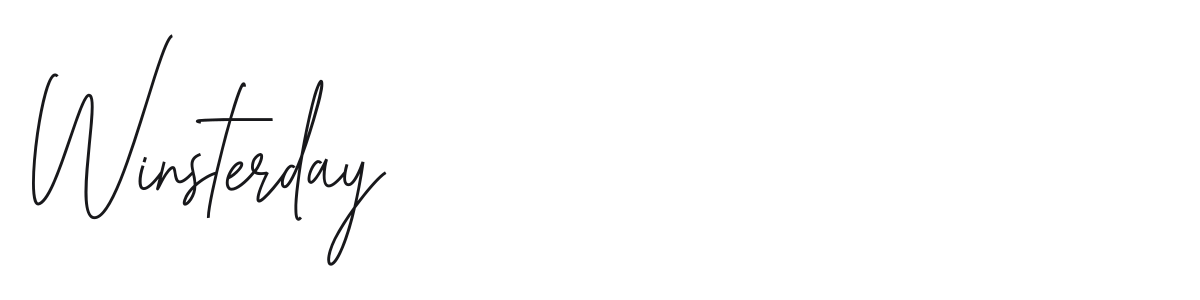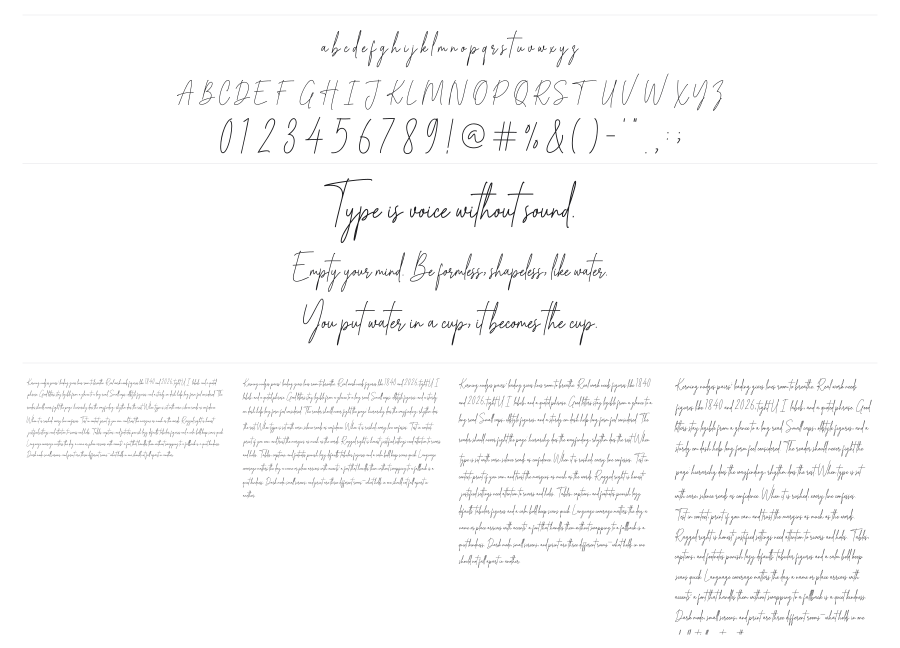
Winsterday
Winsterday is a thin, flowing casual script with near-hairline strokes and long sweeping connections between letters. The loose, naturalistic rhythm gives it a handwritten intimacy that feels both effortless and refined. It sits comfortably in wedding stationery, branding, and packaging where lightness and elegance matter.